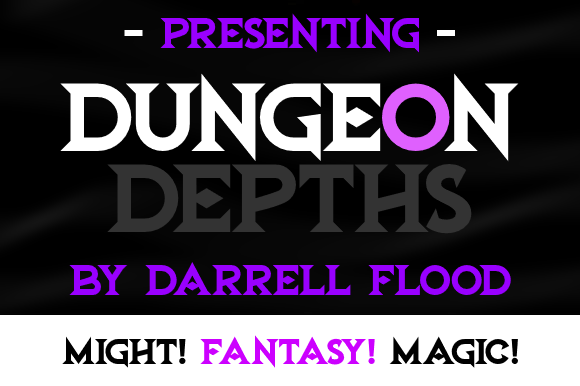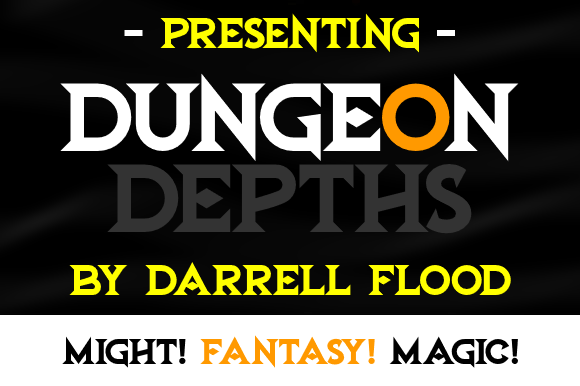
Dungeon Depths Font: Unleash the Adventure with a Sharp Angular Style
Are you a designer, crafter, or writer looking for a font that captures the essence of old-school fantasy and adventure? Look no further than the Dungeon Depths Font, a sharp angular style font perfect for role-playing adventures, dungeon explorations, and general fiction use. In this article, we’ll dive into the world of Dungeon Depths Font, exploring its features, uses, and benefits for creatives.
What is Dungeon Depths Font?
Dungeon Depths Font is a carefully crafted font designed to evoke the nostalgia of classic fantasy and adventure stories. Its sharp angular style is reminiscent of ancient tomes, mysterious scrolls, and worn stone inscriptions. The font’s rugged, weathered look adds a touch of authenticity to any project, transporting your audience to a world of wonder and danger.
Key Features of Dungeon Depths Font
- Sharp Angular Style: The font’s distinctive sharp edges and angular lines create a sense of ruggedness and adventure.
- Old-School Fantasy Feel: Dungeon Depths Font is inspired by classic fantasy stories, making it perfect for projects that require a nostalgic touch.
- Highly Legible: Despite its rugged appearance, the font remains highly legible, even at smaller sizes.
- Versatile: Use Dungeon Depths Font for titles, headings, and body text to create a cohesive look across your project.
Uses for Dungeon Depths Font
Dungeon Depths Font is an incredibly versatile font, suitable for a wide range of creative projects. Here are some ideas to get you started:
- Role-Playing Games: Use Dungeon Depths Font to create immersive game materials, such as character sheets, campaign settings, and adventure modules.
- Fantasy Fiction: Add a touch of authenticity to your fantasy novels, short stories, or poetry with Dungeon Depths Font.
- Dungeon Crawls and Explorations: Create thrilling adventure materials, such as dungeon maps, treasure chests, and ancient artifacts.
- Graphic Novels and Comics: Use Dungeon Depths Font to add a bold, dynamic touch to your graphic novels and comics.
- Tabletop Gaming: Enhance your tabletop gaming experiences with custom materials, such as player guides, rulebooks, and scenario settings.
Dungeon Depths Font offers a range of benefits for designers and crafters, including:
- Time-Saving: With Dungeon Depths Font, you can quickly create professional-looking materials without spending hours designing a custom font.
- Consistency: Use Dungeon Depths Font across your project to maintain a cohesive look and feel.
- Inspiration: The font’s unique style can inspire your creativity, helping you to develop new ideas and concepts.
Dungeon Depths Font is a powerful tool for designers, crafters, and writers looking to add a touch of old-school fantasy and adventure to their projects. With its sharp angular style, highly legible design, and versatile uses, this font is perfect for role-playing adventures, dungeon explorations, and general fiction use. Whether you’re creating game materials, fiction stories, or graphic novels, Dungeon Depths Font is an excellent choice for anyone seeking to unleash their creativity and transport their audience to a world of wonder and danger.